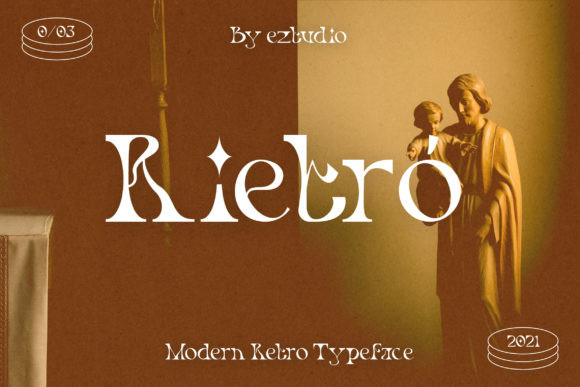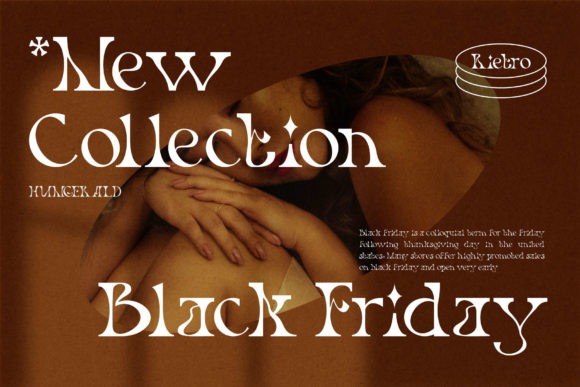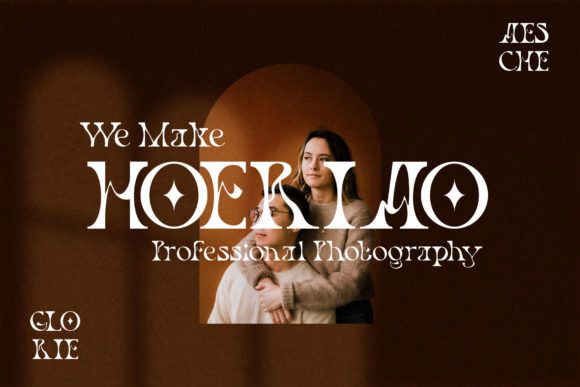
Rietro Font
Rietro is a luxurious and uniquely lettered serif font. It has a classy, elegant and modern look that can be used for logos, branding, invitations, stationery, wedding designs, social media posts, and much more!